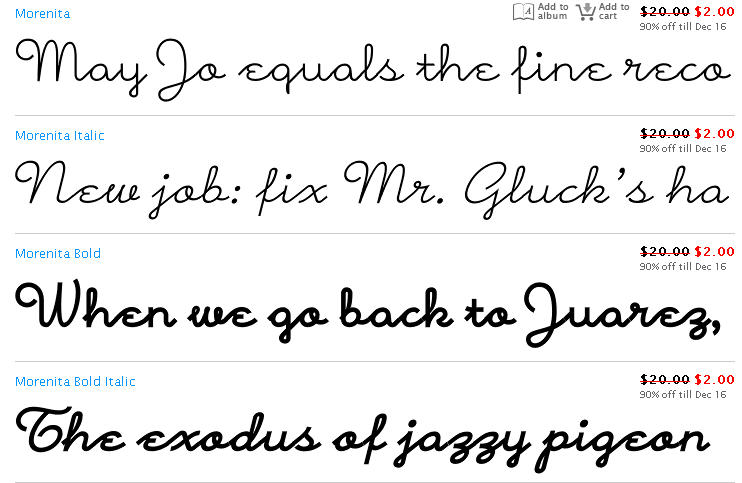
Font Frenzy: Morenita on Sale!
Today, we’re bringing you Morenita, a casual little script font with buckets of character. The font family offers two weights + two italic variations, as you can see from the samples below. Right now, each font is $2 OR you can get the whole package of four fonts for only $7.40! The desktop license allows commercial use, so you’ll be good to go. Have fun!